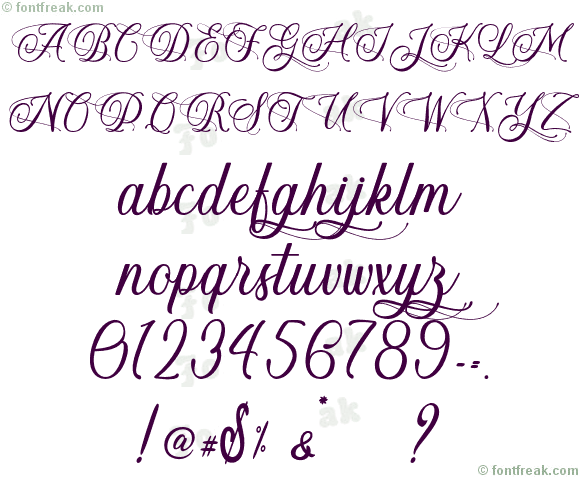
SuperYeasty-PersonalUse
About SuperYeasty-PersonalUse
The SuperYeasty-PersonalUse font, designed by Suthi Srisopha, is a stunning display typeface that captures attention with its elegant and whimsical charm. This font is characterized by its flowing script style, featuring graceful, sweeping strokes and intricate flourishes. The stroke weight varies, providing a delightful contrast that enhances its visual appeal. The spacing is well-balanced, allowing for easy readability while maintaining a decorative essence that makes it stand out.
Ideal for a variety of creative projects, the SuperYeasty-PersonalUse font excels in settings such as wedding invitations, where its romantic flair can beautifully convey heartfelt sentiments. It is also a fantastic choice for movie posters, adding an artistic touch that draws viewers in. Restaurant menus can benefit from its stylish presentation, helping to create an inviting atmosphere that complements culinary offerings. Additionally, this font can elevate branding materials for small businesses, offering a unique identity that resonates with customers.
Targeted towards graphic designers, small business owners, and content creators, the SuperYeasty-PersonalUse font caters to those seeking to add a personal touch to their work. Its versatility makes it suitable for both digital and print applications, ensuring that it can be utilized in various contexts.
What truly sets the SuperYeasty-PersonalUse font apart is its ability to blend elegance with creativity, making it a perfect choice for projects that require a touch of sophistication. The combination of its artistic design and practical usability ensures that this font will not only enhance your work but also leave a lasting impression. For those looking to explore its potential, the SuperYeasty-PersonalUse font free download is readily available, making it accessible for personal projects.